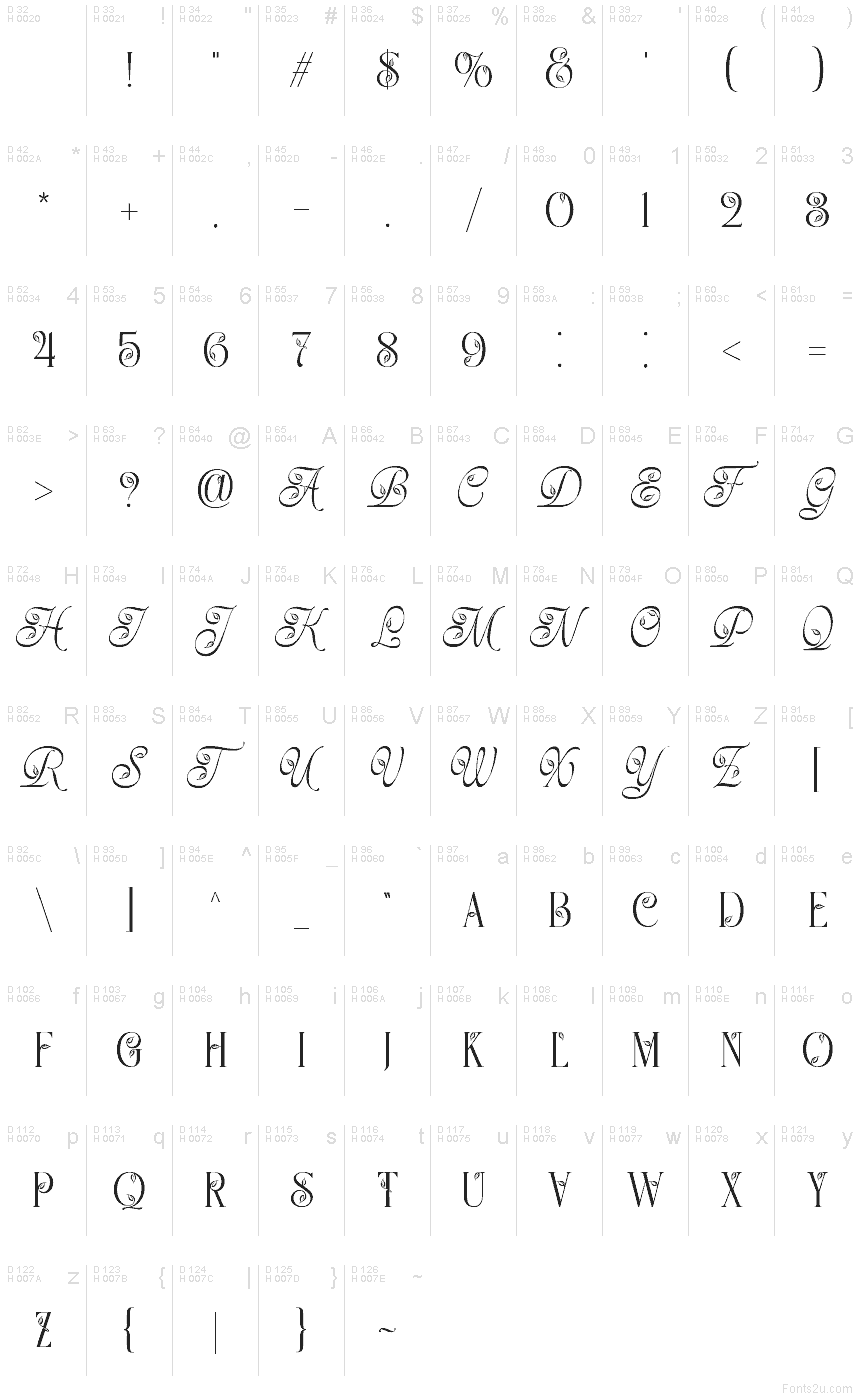
Gamory Regular
Gamory font by Alit Design is a decorative display typeface with a condensed width. Its modern design creates eye-catching titles that stand out in any medium, instantly grabbing the attention of readers and viewers with aesthetic beauty.
This free font suits headings, subheadings, packaging designs, online and printed posters, brochure/website banners, and social media posts. It can also be used for magazine covers/titles or advertising purposes.